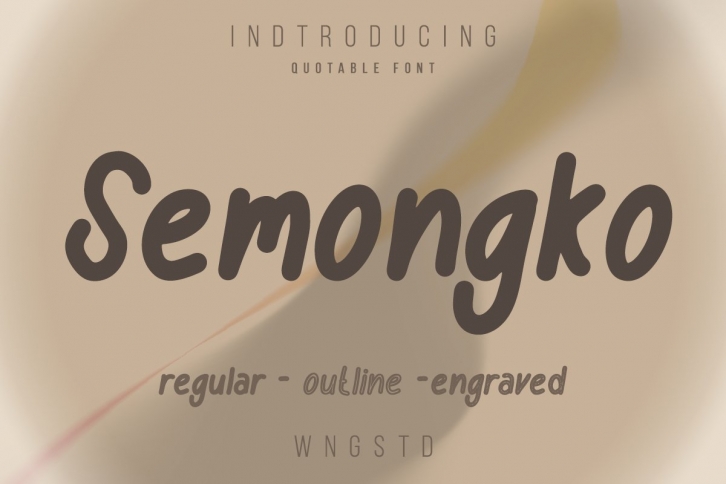
Semongko is a gorgeous font that was realeased on February 10, 2021. The font can be used in many style contexts and design environments. Perfect for invitations, magazines, websites, logos, and more! It was designed by WNGSTD and the file size is 7.36 MB. Thanks for checking out this font!